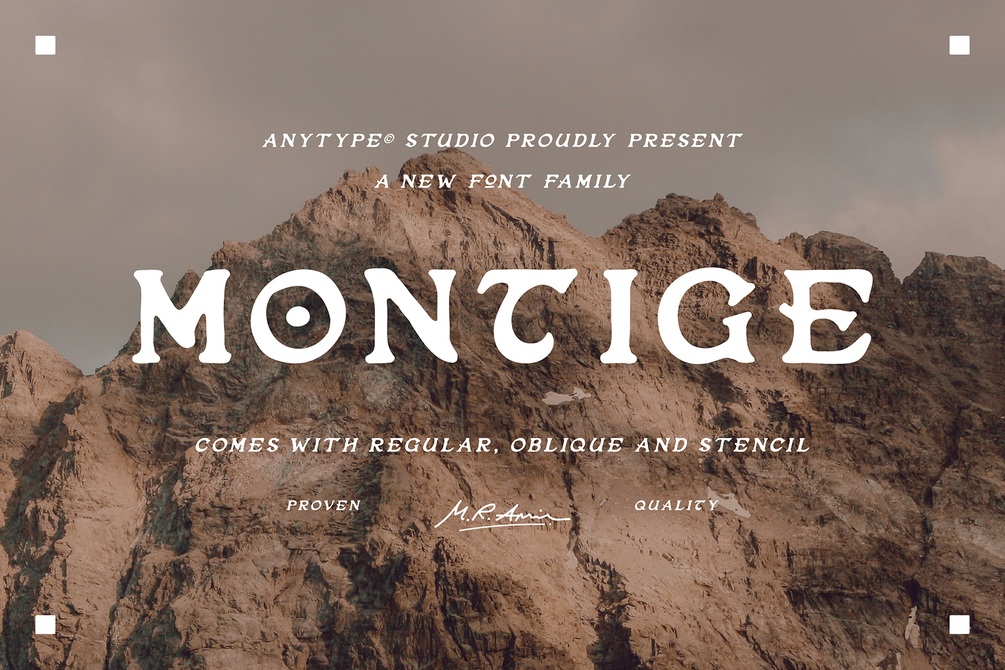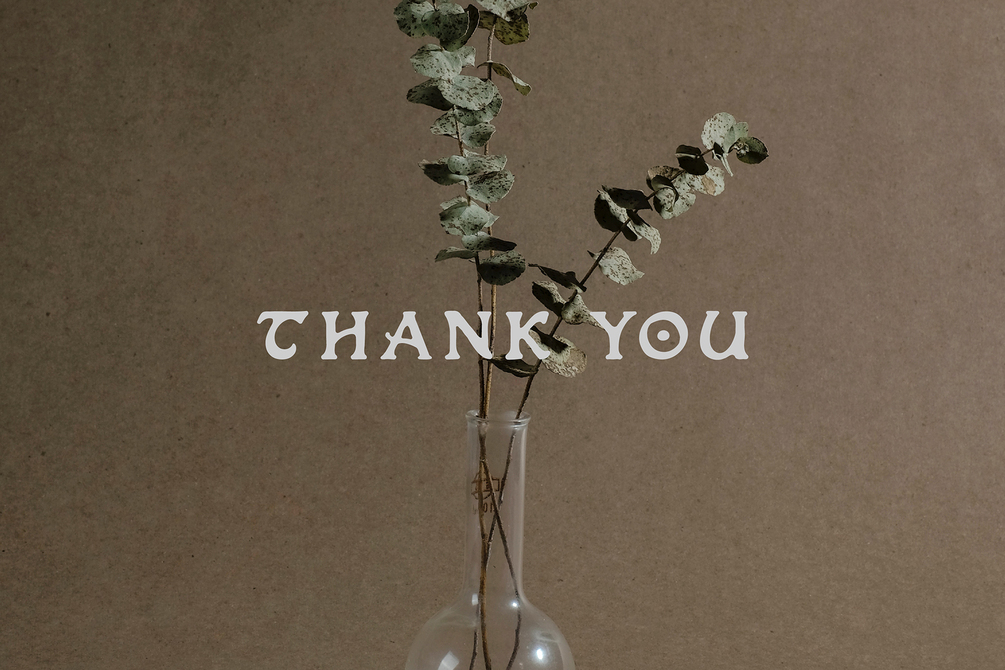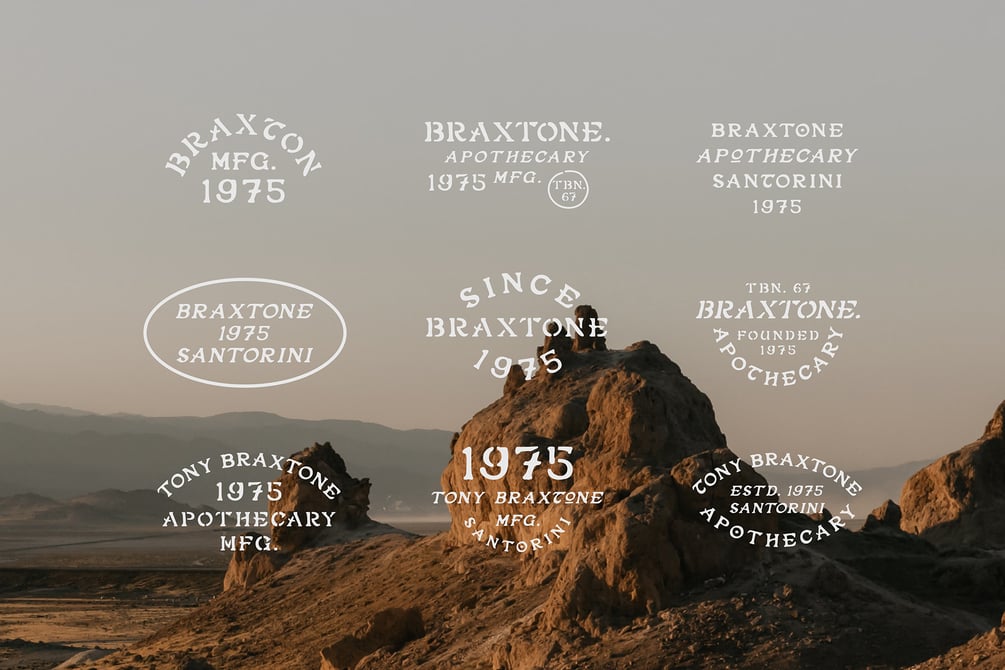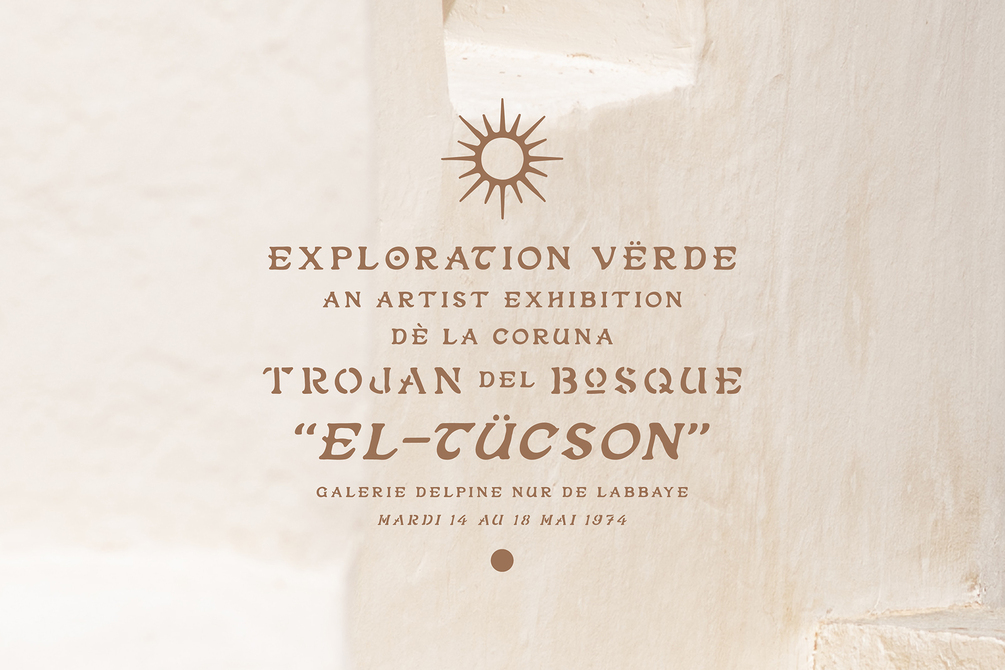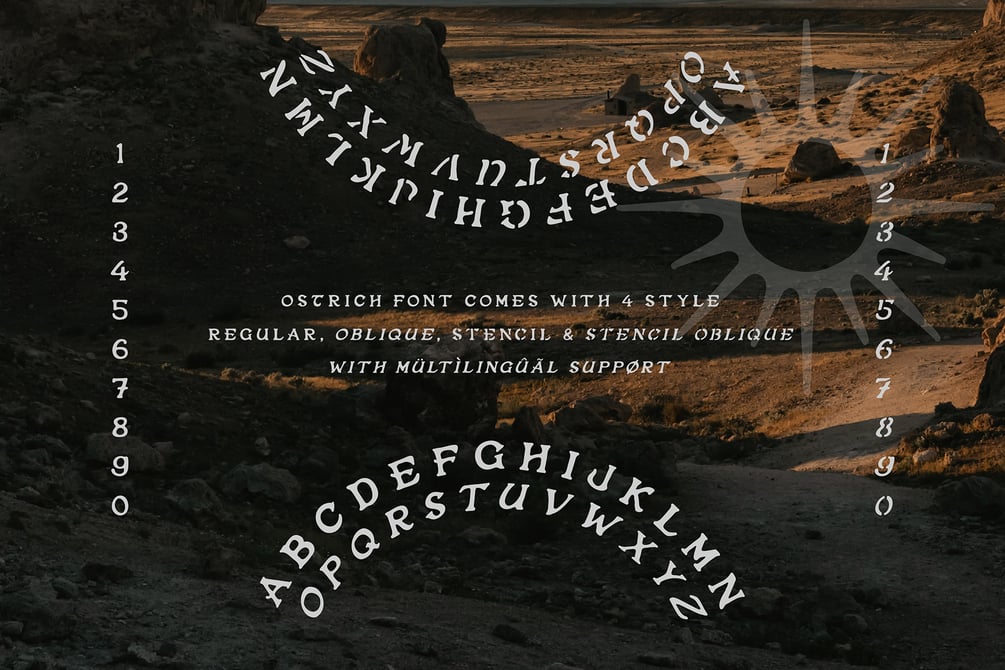
Montige Font
Montige Typeface is handmade vintage serif fonts. Inspired by classic western culture, custom culture motorcycle and combining with vintage touch. There’s 4 font style that would be perfect to combine in your design, especially on vintage design. This fonts comes with 4 style (Regular, Slant, Stencil and Slant Stencil) with opentype and truetype features also webfont format.